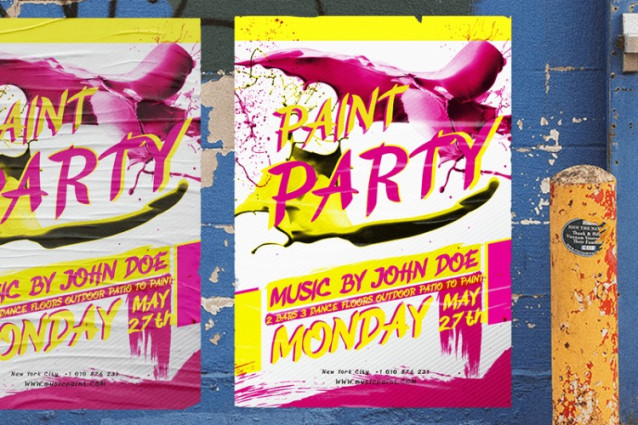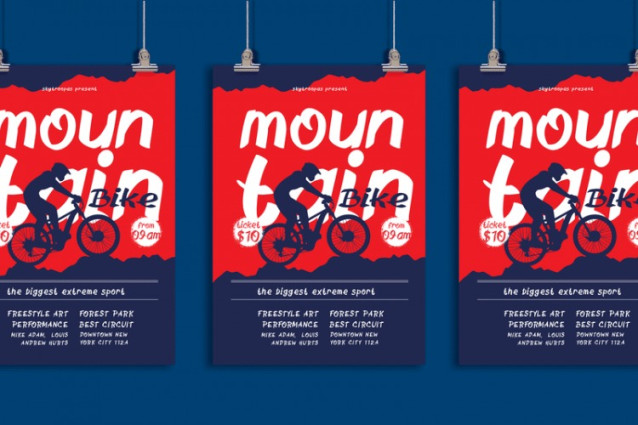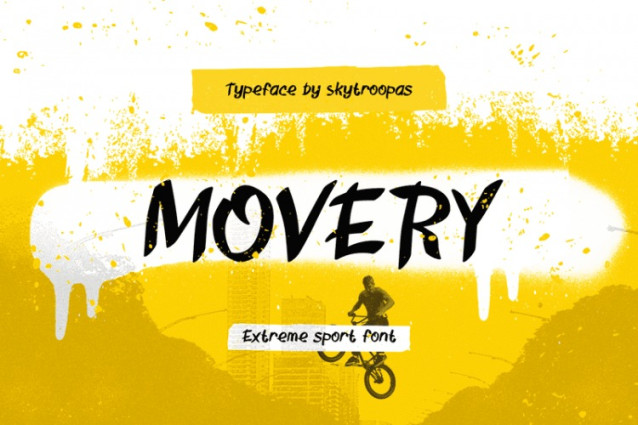
Movery Font
Movery Font is a bold, energetic typeface designed for extreme sports and action-driven themes. It captures the thrill of movement and adventure, making it perfect for projects needing a dynamic look. With its sharp, angular strokes and slightly distressed style, this font effectively mimics the intensity of graffiti art, giving each letter a rugged, hand-drawn feel. Graffiti Font Movery stands out with its powerful lines, bringing a raw, authentic edge to any design.Additionally, this font balances readability and personality, making it ideal for bold headlines or titles. It adapts well across various media, from digital screens to print materials, ensuring it maintains impact and clarity. Whether used for posters, sports branding, or motivational visuals, this font consistently adds energy and action. Moreover, its versatile design pops against different background colors, making it suitable for adventurous themes and urban projects.The rugged, extreme-sport vibe aligns well with themes of risk, resilience, and movement. With Graffiti Font Movery, you can add a fearless touch to your work, effectively capturing attention and igniting excitement.Movery is perfect for brands, designers, and creatives seeking an adventurous style. Specifically, this font suits extreme sports brands, action-focused events, and campaigns targeting a youthful, energetic audience. It’s ideal for BMX, skateboarding, mountain biking, or any adrenaline-packed sport.Furthermore, social media marketers and content creators will find Graffiti Font Movery effective for engaging posts. Its bold design draws attention in busy feeds, making it great for promotions, motivational quotes, and announcements. This font appeals to audiences drawn to urban culture and a fearless lifestyle, making it ideal for brands aiming to connect with thrill-seekers.
Apparel designers and merchandise creators will also appreciate its strong, daring look. It works well on t-shirts, hoodies, and accessories, giving products an adventurous appeal. Additionally, event organizers for extreme sports or youth festivals can use this font to capture the high-energy vibe in promotional materials, banners, and posters.
Lastly, educators and youth program coordinators can use to create materials that resonate with a younger, adventure-loving audience. Whether you’re working on brand identity, social media content, or promotional materials, consistently adds an edge that embodies strength, resilience, and excitement. In essence, this typeface is more than just a look—it’s a bold statement for those who embrace challenges head-on.